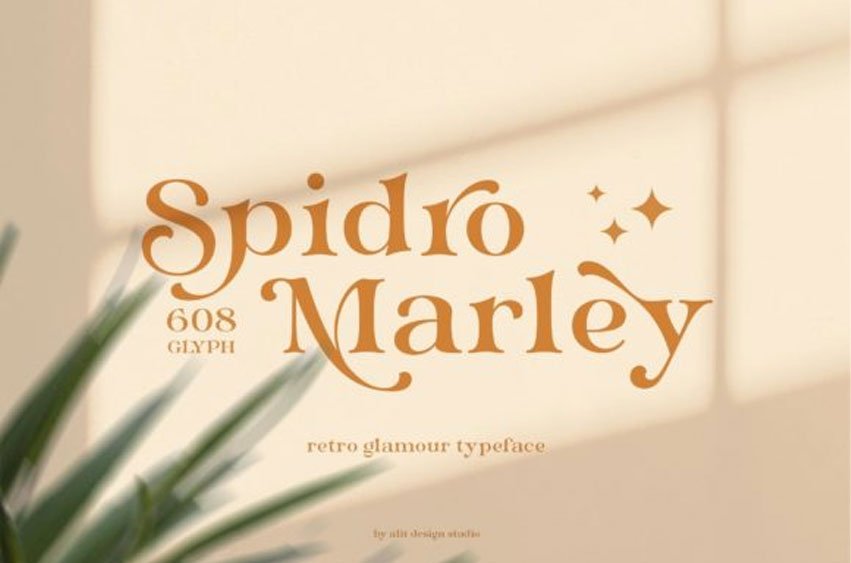
Spidro Marley Font is a glamorous serif font. It will add a luxury spark to any design project that you wish to create!
This font is PUA-encoded, which means you can access all the amazing glyphs and ligatures with ease.